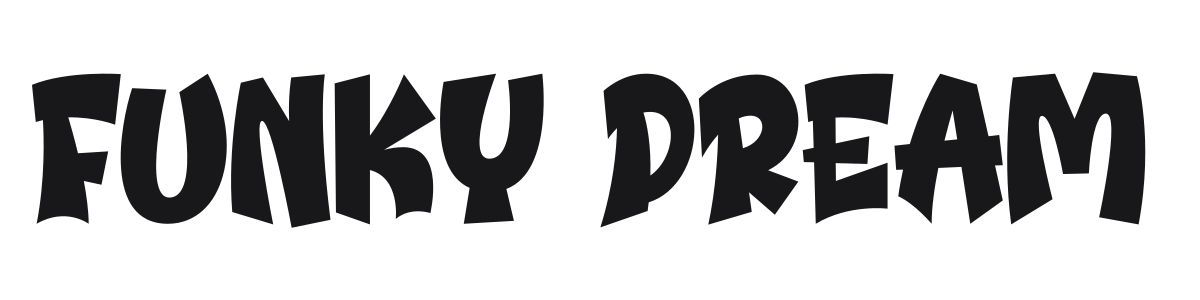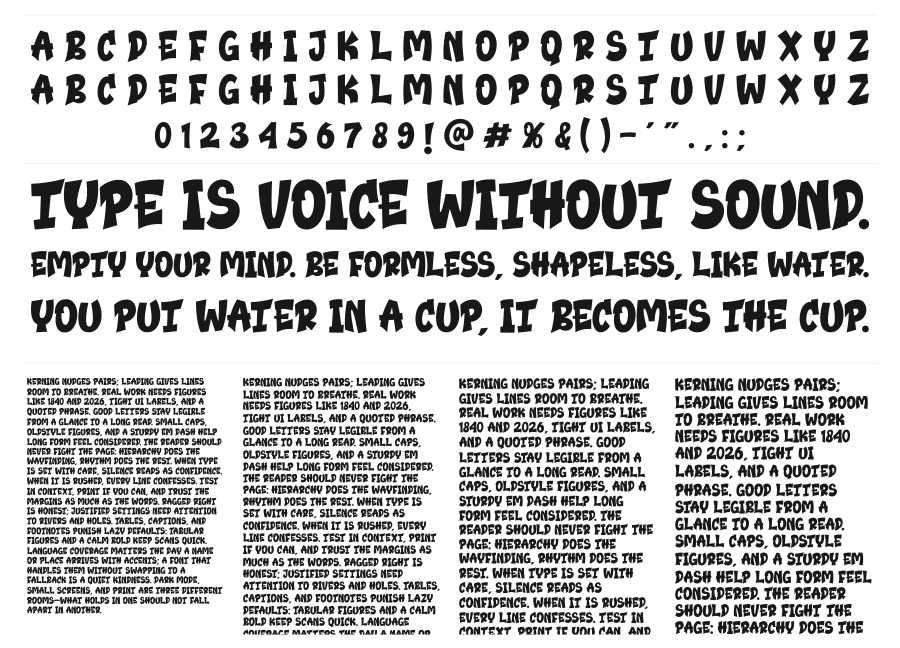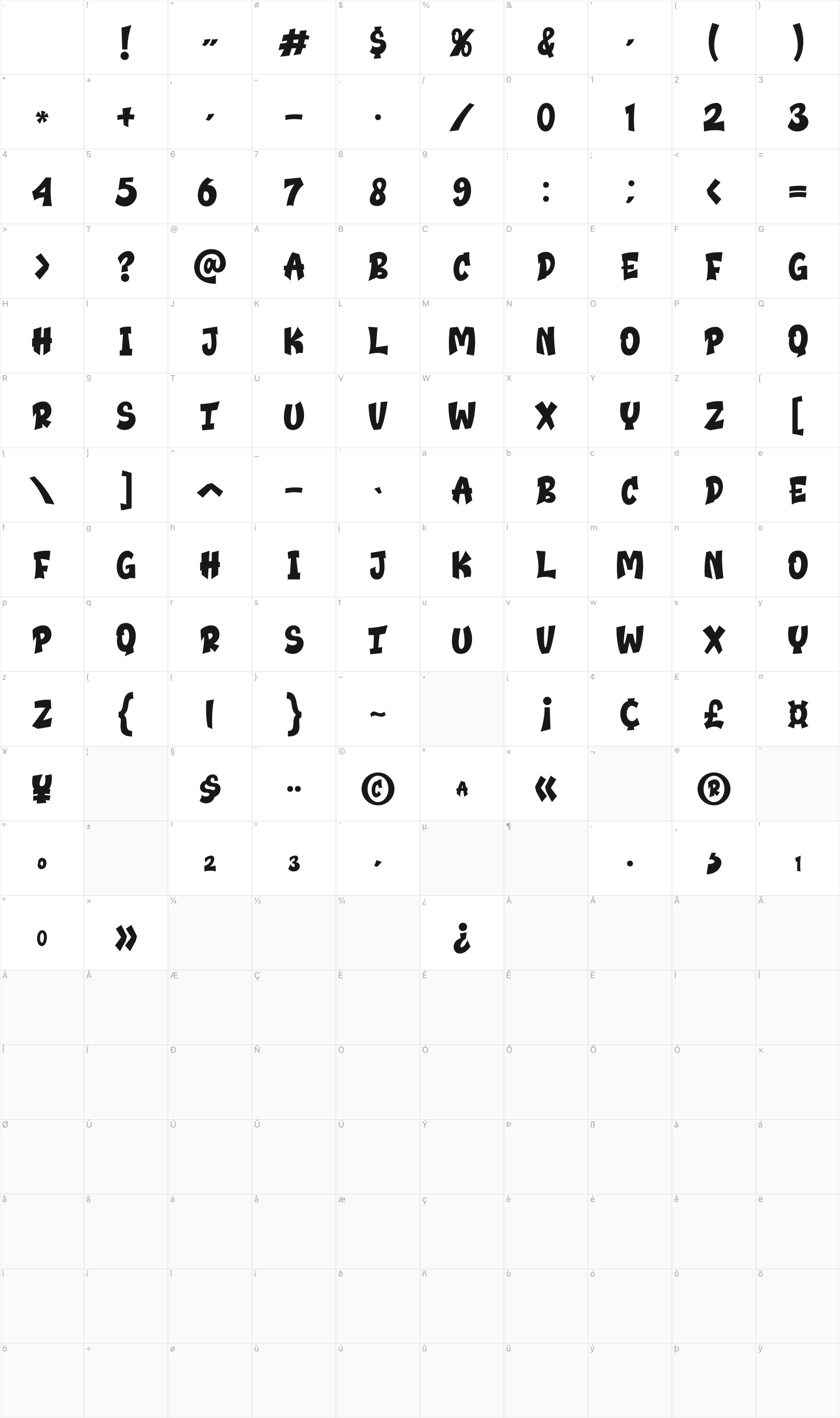
Funky Dream
Funky Dream is a heavy groovy display font with thick, irregular characters that channel 1970s pop energy. Each letter has a deliberately wobbly, hand-drawn quality with chunky wedge serifs and slight baseline shifts that keep the eye moving. Built for posters, packaging, and anywhere a headline needs to feel loud and fun.